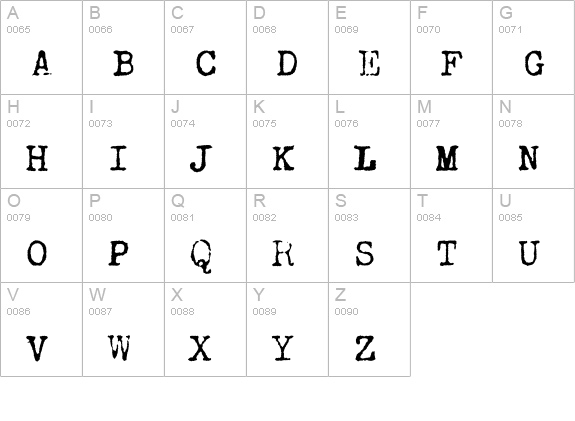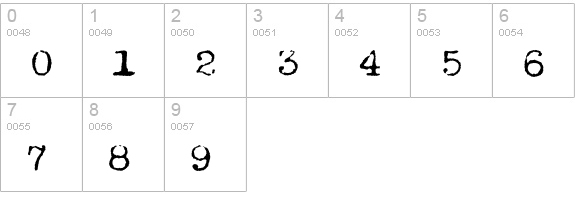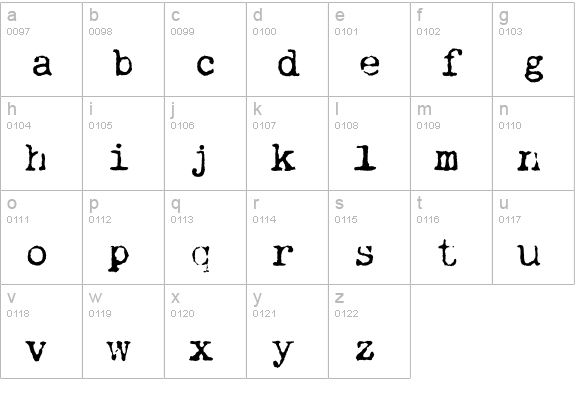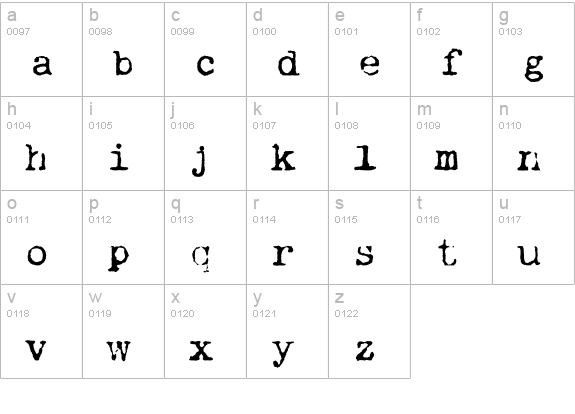
VTypewriter-RemingtonPremiere Font Details
The VTypewriter-RemingtonPremiere font is a classic typewriter-inspired typeface that brings a touch of nostalgia to any design project. With its vintage charm and authentic character, this font captures the essence of old typewriters, adding a unique and timeless appeal to your work. Designed with meticulous attention to detail, VTypewriter-RemingtonPremiere is a versatile font that can be used for a wide range of applications. Whether you're creating a vintage-themed logo, designing a retro poster, or adding a touch of authenticity to your digital content, this font is sure to make a statement. The VTypewriter-RemingtonPremiere font is not only aesthetically pleasing but also highly functional. Its clean lines and easy readability make it perfect for both print and digital media. Whether you're using it in headlines, captions, or body text, this font ensures that your message is delivered with clarity and impact. One of the best things about the VTypewriter-RemingtonPremiere font is that it is completely free to download. You can easily access this stunning typeface at FontsMarket.com, where you'll find a vast collection of high-quality fonts for all your design needs. So, whether you're a professional designer or a typography enthusiast, don't miss out on the opportunity to enhance your projects with this beautiful and freely available font.